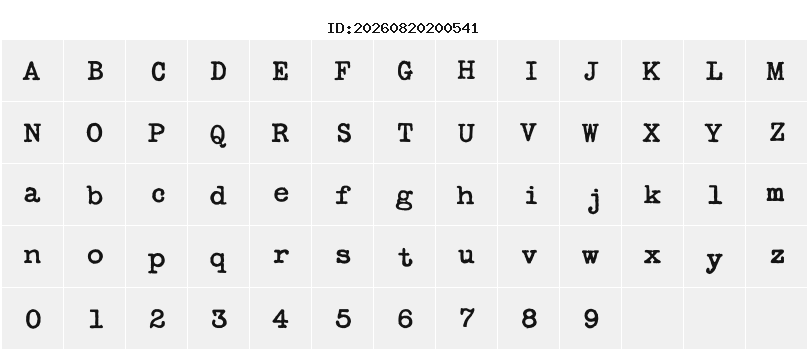
• Manufacturer: International TypeFounders Inc.
• Description: Secret Service: This typeface is based on an early typewriter style circa 1910 from the defunct Keystone Type Foundry in Philadelphia. The foundry was absorbed by ATF circa 1920 and this design did not survive the acquisition. International TypeFounders was careful to ensure that this design has a 'muddy' typewriter feel when recreating this typeface. © International TypeFounders, Inc. 1998